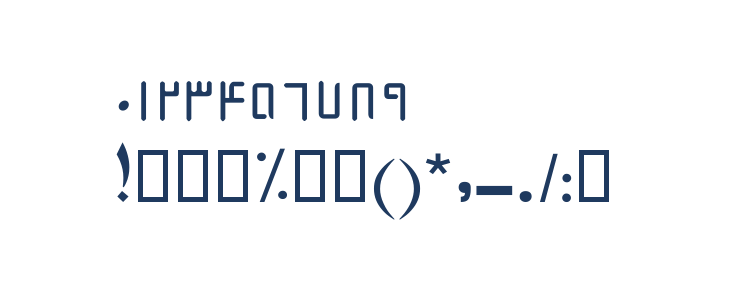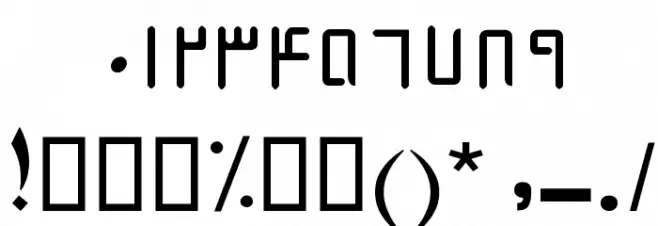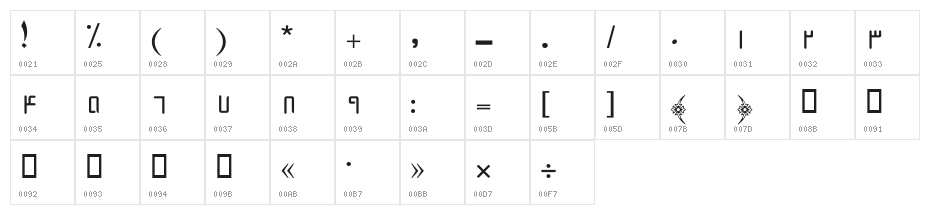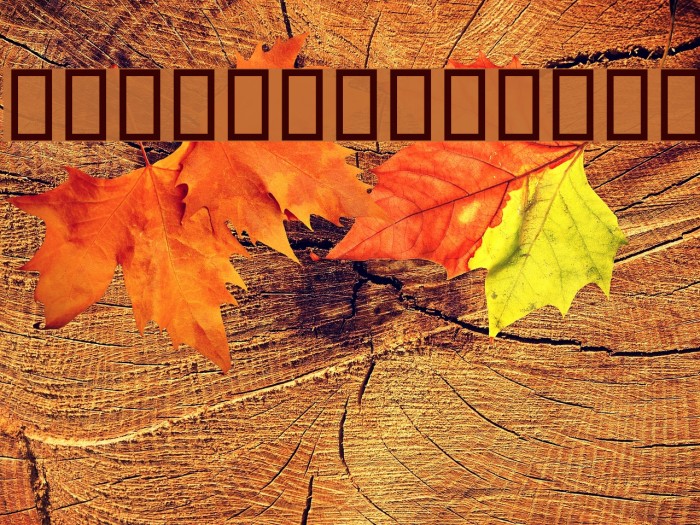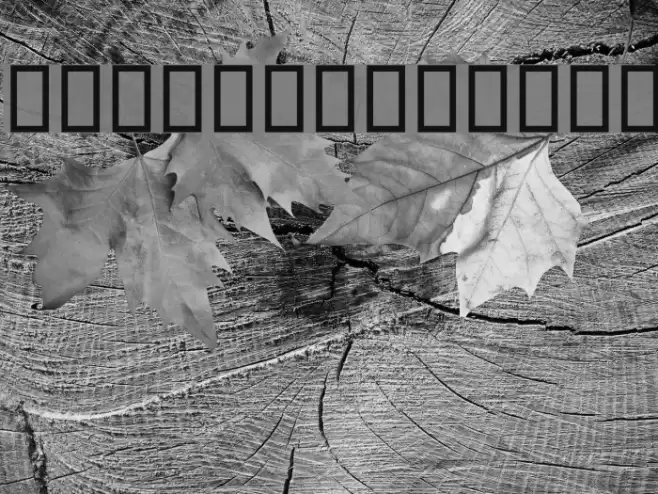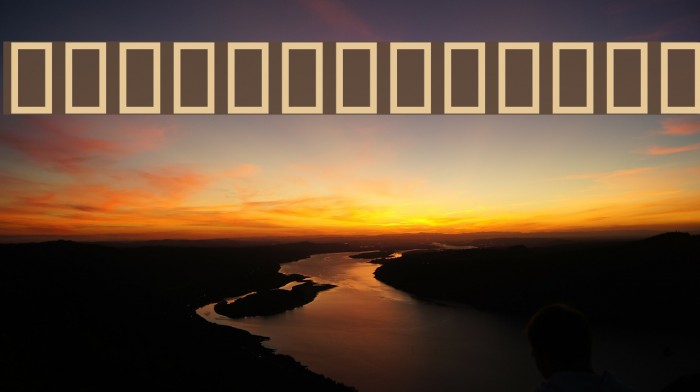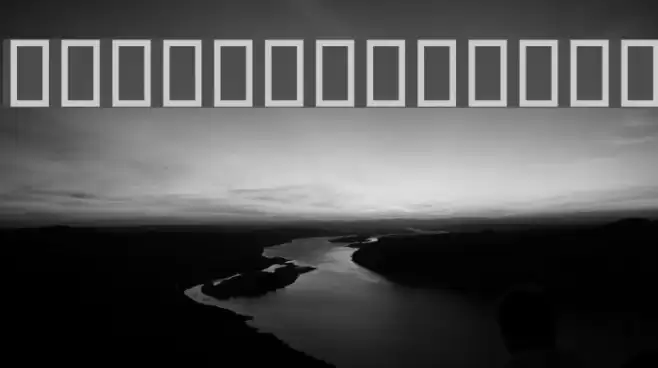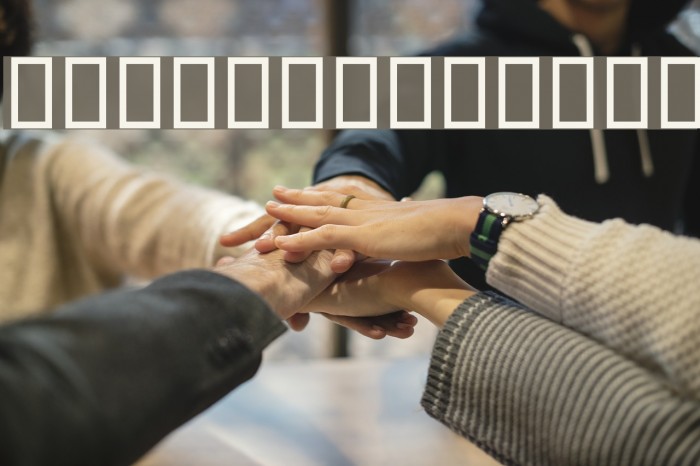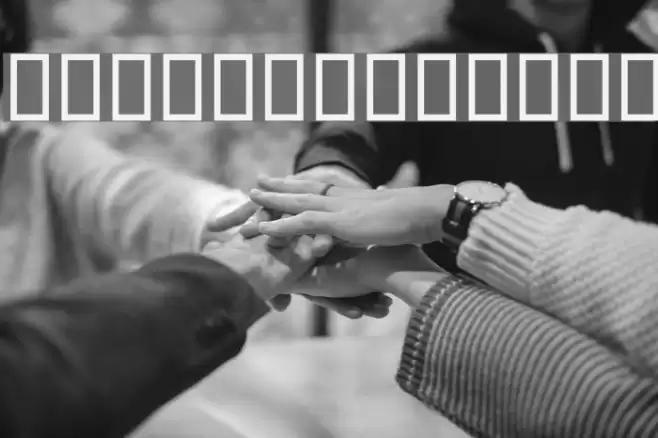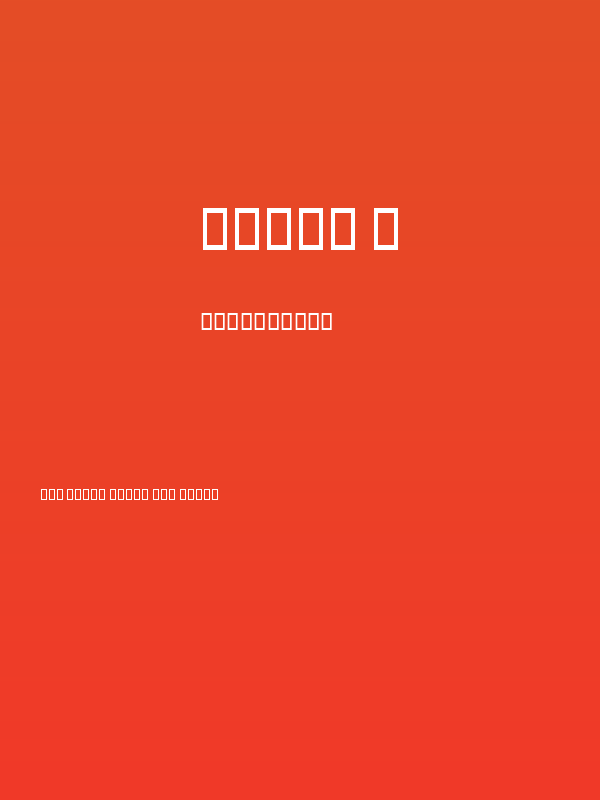
Amood I Font
Amood I Description
This font features a modern and geometric design with a strong emphasis on clean lines and uniformity. Each character is constructed with a consistent stroke weight, creating a harmonious and balanced appearance. The font's structure is highly legible, making it suitable for various design applications. Its geometric nature gives it a contemporary feel, while the uniformity in character height and width ensures readability across different sizes. The font includes a full set of uppercase and lowercase letters, numbers, and a variety of special characters, making it versatile for both digital and print media.